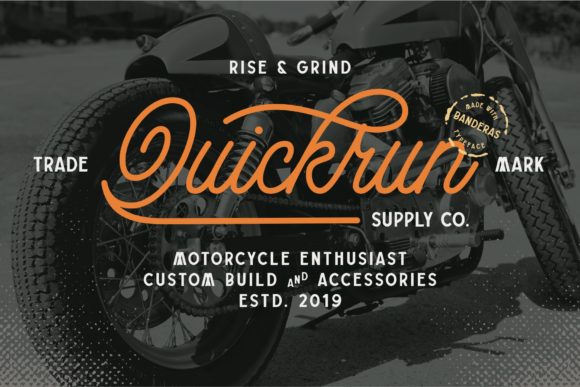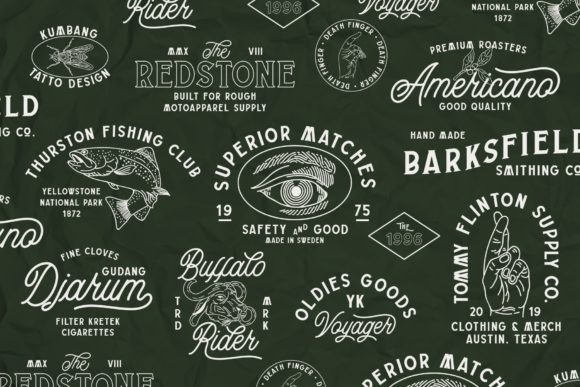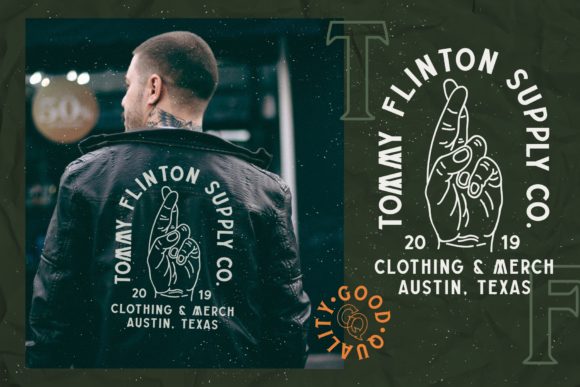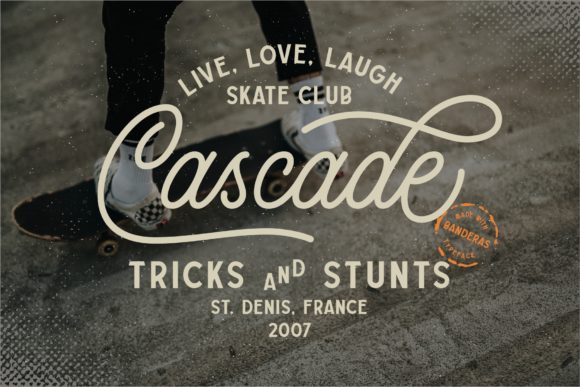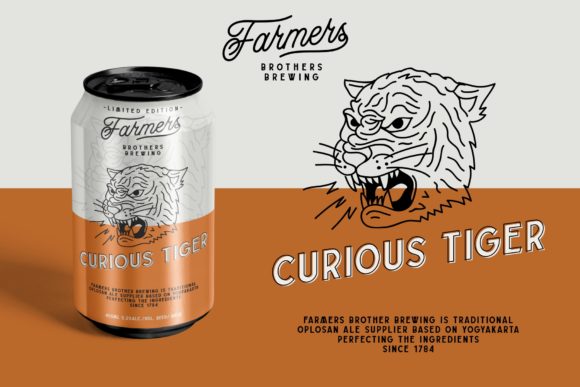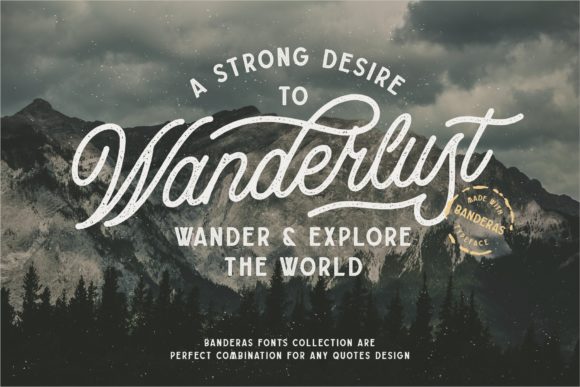
Banderas Font: The Ultimate Guide to this Charming Handwritten Font
In the world of typography, few fonts have managed to capture the essence of vintage charm and elegance like Banderas. Inspired by vintage hand lettering, Banderas is a smooth and charming handwritten font that can instantly elevate any design project into an eye-catcher. In this comprehensive guide, we’ll dive into the world of Banderas font, exploring its features, uses, and benefits for designers and crafters.
What is Banderas Font?
Banderas font is a modern take on traditional hand lettering. Its smooth, flowing lines and elegant curves evoke a sense of nostalgia and sophistication. This beautiful font is perfect for designers looking to add a touch of vintage charm to their projects. Whether you’re working on a logo, branding materials, or marketing collateral, Banderas font is sure to make your design stand out.
Features of Banderas Font
So, what makes Banderas font so special? Here are some of its key features:
- Smooth and charming: Banderas font boasts smooth, flowing lines that give it a charming and elegant feel.
- Vintage inspiration: Inspired by vintage hand lettering, Banderas font brings a touch of nostalgia to any design project.
- Handwritten feel: Despite being a digital font, Banderas has a distinctly handwritten feel that adds a personal touch to any design.
- Versatile: Banderas font can be used for a wide range of design projects, from logos and branding materials to marketing collateral and more.
Uses of Banderas Font
Banderas font is an incredibly versatile font that can be used for a variety of design projects. Here are some of the most popular uses of Banderas font:
- Logo design: Banderas font is perfect for creating elegant and sophisticated logos that stand out.
- Branding materials: Use Banderas font to create consistent branding across all your marketing materials, from business cards to brochures.
- Marketing collateral: Banderas font is ideal for creating eye-catching marketing materials, such as flyers, posters, and social media graphics.
- Wedding and event design: Banderas font is a popular choice for wedding and event design, adding a touch of elegance and sophistication to invitations, programs, and more.
Benefits of Using Banderas Font
So, why should you choose Banderas font for your design projects? Here are some of the benefits of using Banderas font:
- Unique and distinctive: Banderas font is a unique and distinctive font that will set your design apart from the crowd.
- Elegant and sophisticated: Banderas font adds a touch of elegance and sophistication to any design project.
- Easy to read: Despite its elegant feel, Banderas font is easy to read and understand, making it perfect for body text and headlines.
- Customizable: Banderas font comes in a range of styles and weights, allowing you to customize it to suit your design needs.
Tips for Using Banderas Font
Here are some tips for using Banderas font in your design projects:
- Pair with contrasting fonts: Pair Banderas font with contrasting fonts to create visual interest and hierarchy.
- Use for headlines and titles: Banderas font is perfect for headlines and titles, adding a touch of elegance and sophistication to your design.
- Experiment with colors: Banderas font looks great in a range of colors, from bold and bright to soft and pastel.
- Don’t overuse: Use Banderas font sparingly to avoid overwhelming your design. Instead, use it to create visual interest and hierarchy.
| Font Name | Banderas Font |
In conclusion, Banderas font is a smooth and charming handwritten font that can instantly elevate any design project into an eye-catcher. With its vintage inspiration, elegant feel, and versatility, Banderas font is perfect for designers and crafters looking to add a touch of sophistication to their designs. Whether you’re working on a logo, branding materials, or marketing collateral, Banderas font is sure to make your design stand out.